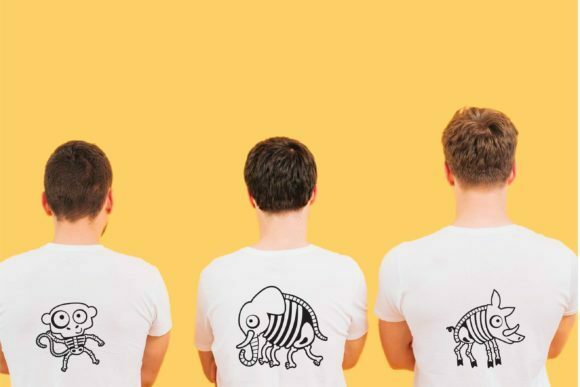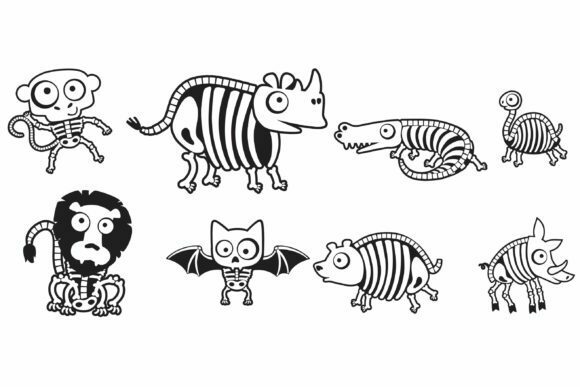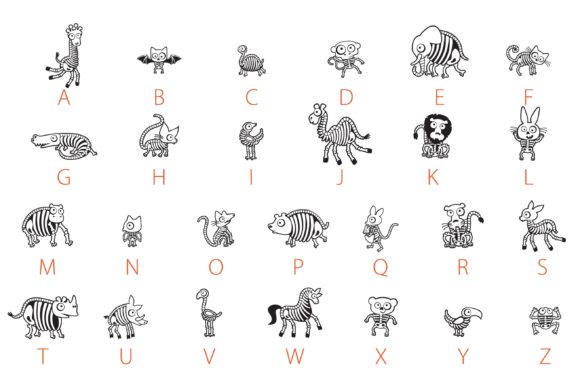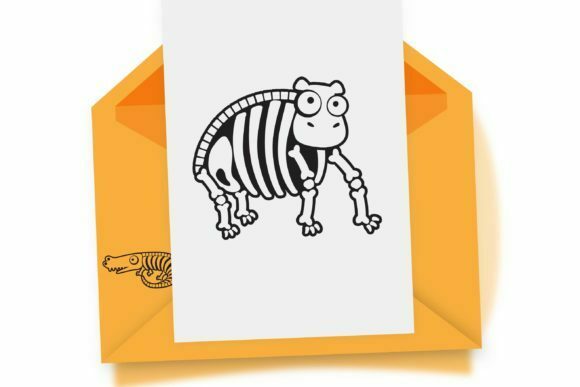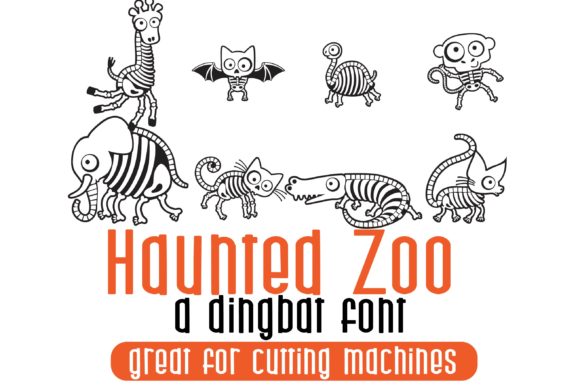
Haunted Zoo Font
About Haunted Zoo Font
Haunted Zoo sounds like a fantastic and playful dingbats font that brings together the spooky elements of Halloween with cute and cool animal skeletons and ghosts. With its unique and fun character set, this font is perfect for any Halloween-themed crafts and designs. Here are some creative ideas on how you can use the Haunted Zoo dingbats font:
1. Halloween Party Invitations: Create eye-catching and fun Halloween party invitations using the animal skeleton and ghost glyphs from Haunted Zoo. Incorporate the playful elements into your design, such as placing the skeletons or ghosts in amusing poses or interactions.
2. Trick-or-Treat Bags: Personalize trick-or-treat bags with the Haunted Zoo dingbats font. Print out the animal skeleton or ghost glyphs and use them as stencils to paint or apply iron-on transfers onto the bags. Kids will love the spooky yet cute design!
3. Spooky Wall Decor: Decorate your home or party venue with Haunted Zoo-inspired wall decor. Print out the animal skeleton and ghost glyphs on cardstock or sticker paper, and arrange them in a fun and spooky display. Add other Halloween-themed elements like spider webs or bats for an extra eerie touch.
4. Halloween Crafts: Incorporate the Haunted Zoo glyphs into various Halloween crafts. Create paper or felt cutouts of the animal skeletons or ghosts and use them as embellishments for scrapbooking, card making, or DIY costume accessories. The unique and playful design will make your crafts stand out.
5. Social Media Graphics: Enhance your Halloween-themed social media posts with the Haunted Zoo dingbats font. Use the animal skeleton or ghost glyphs to create fun and engaging graphics. You can overlay the glyphs on photos or use them as decorative elements in your designs.
Remember to explore the different animal skeleton and ghost glyphs in the Haunted Zoo dingbats font and let your creativity flow. Whether you’re creating invitations, decorations, crafts, or digital graphics, the spooky yet cute elements of Haunted Zoo will add a delightful touch to your Halloween projects. Enjoy the playful and fun world of Haunted Zoo in your designs!